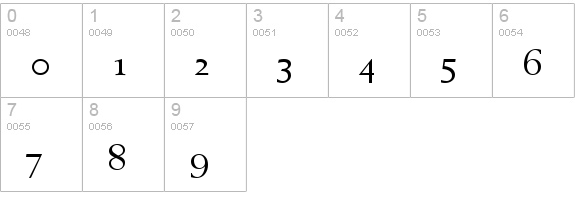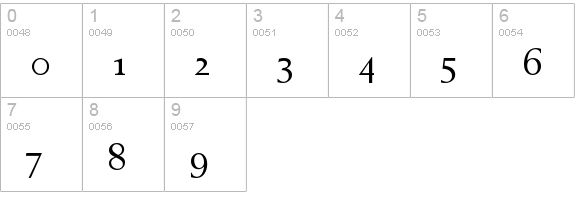
Berling Antiqua is a classic and elegant serif font that exudes sophistication and charm. With its timeless design and graceful curves, Berling Antiqua is the perfect choice for projects that require a touch of refinement. The font's versatile nature makes it suitable for a wide range of applications, from branding and advertising to editorial design and beyond. One of the best things about Berling Antiqua is that it is available for free download at FontsMarket.com. This means that you can easily add this beautiful font to your collection without breaking the bank. Whether you're a designer looking for a new typeface to experiment with or a business owner in need of a polished font for your marketing materials, Berling Antiqua is sure to impress. Download it today and elevate your projects with this exquisite font.